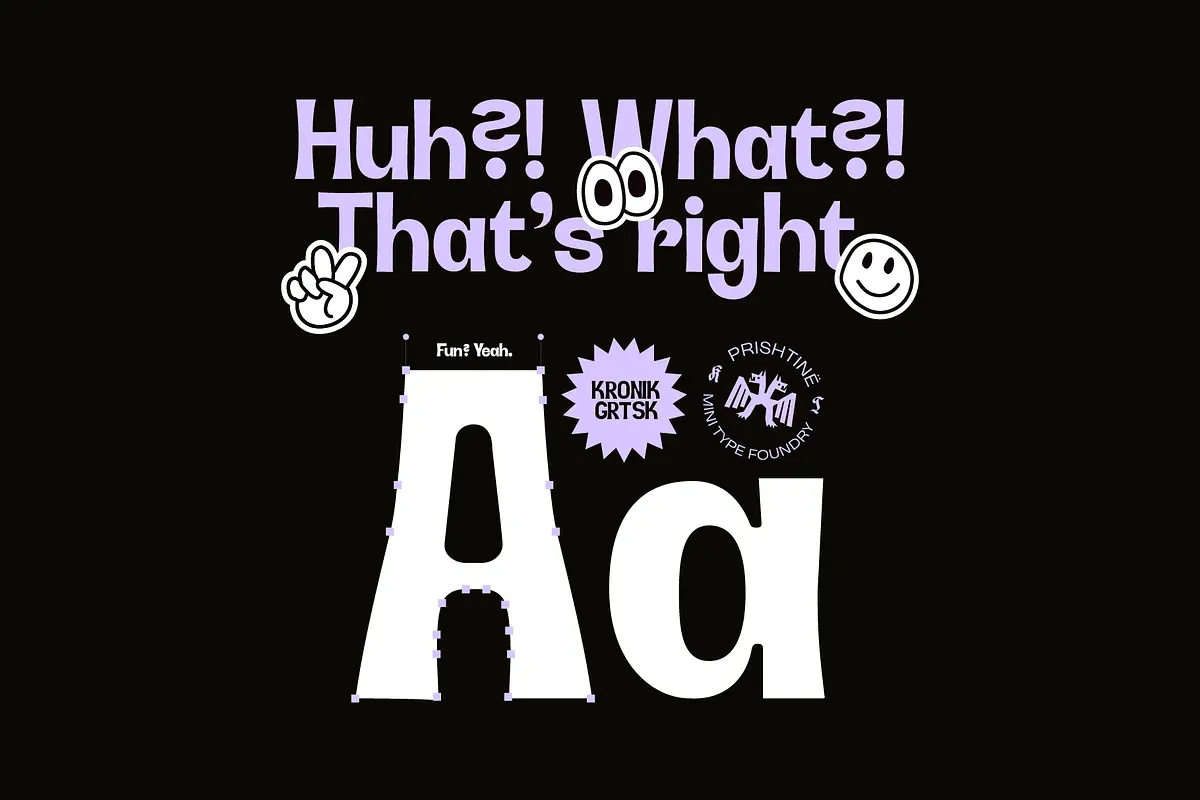
Kronik - Grotesk Type Free Download
Kronik - Grotesk Type Font Free Download
Modern, sleek, and highly functional, Kronik - Grotesk Type Font Free Download is a contemporary sans-serif font designed to deliver clarity and style to your designs. Perfect for branding, editorial layouts, website design, packaging, and social media graphics, Kronik offers a clean and geometric look that works across a wide range of applications.
With its sharp, clean lines and neutral design, Kronik captures the essence of modern grotesk typography, making it an excellent choice for both digital and print projects. Its versatility allows it to work well in both body text and bold, attention-grabbing headlines.